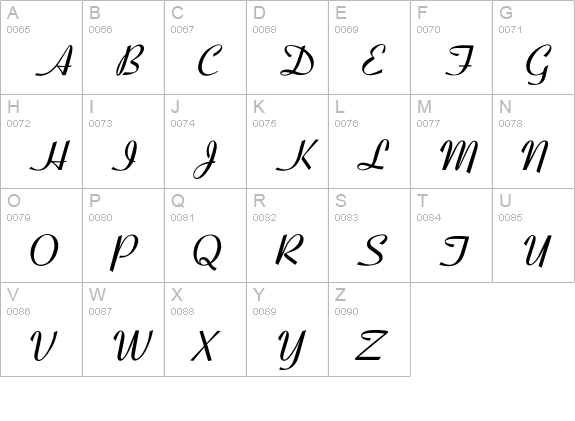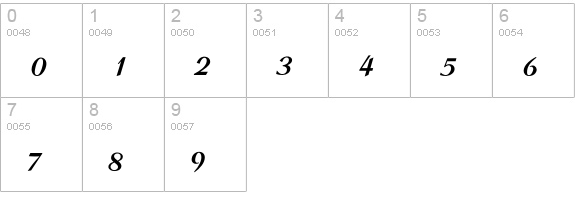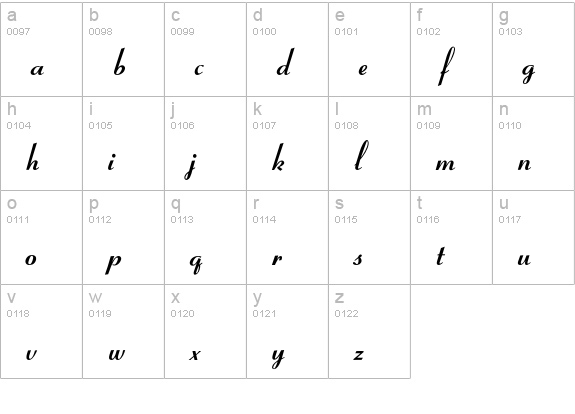
OPTICoyonetBold Font Details
Introducing OPTICoyonetBold font, a bold and striking typeface designed to make a statement. With its clean lines and modern aesthetic, this font is perfect for creating eye-catching headlines, titles, and designs that demand attention. The bold weight of OPTICoyonetBold exudes confidence and strength, making it ideal for projects that require a strong and powerful visual impact. Best of all, OPTICoyonetBold is available for free download at FontsMarket.com. Whether you're working on a branding project, poster design, or website header, this versatile font is sure to enhance your work and help you stand out from the crowd. Don't miss out on the opportunity to add OPTICoyonetBold to your font collection today!